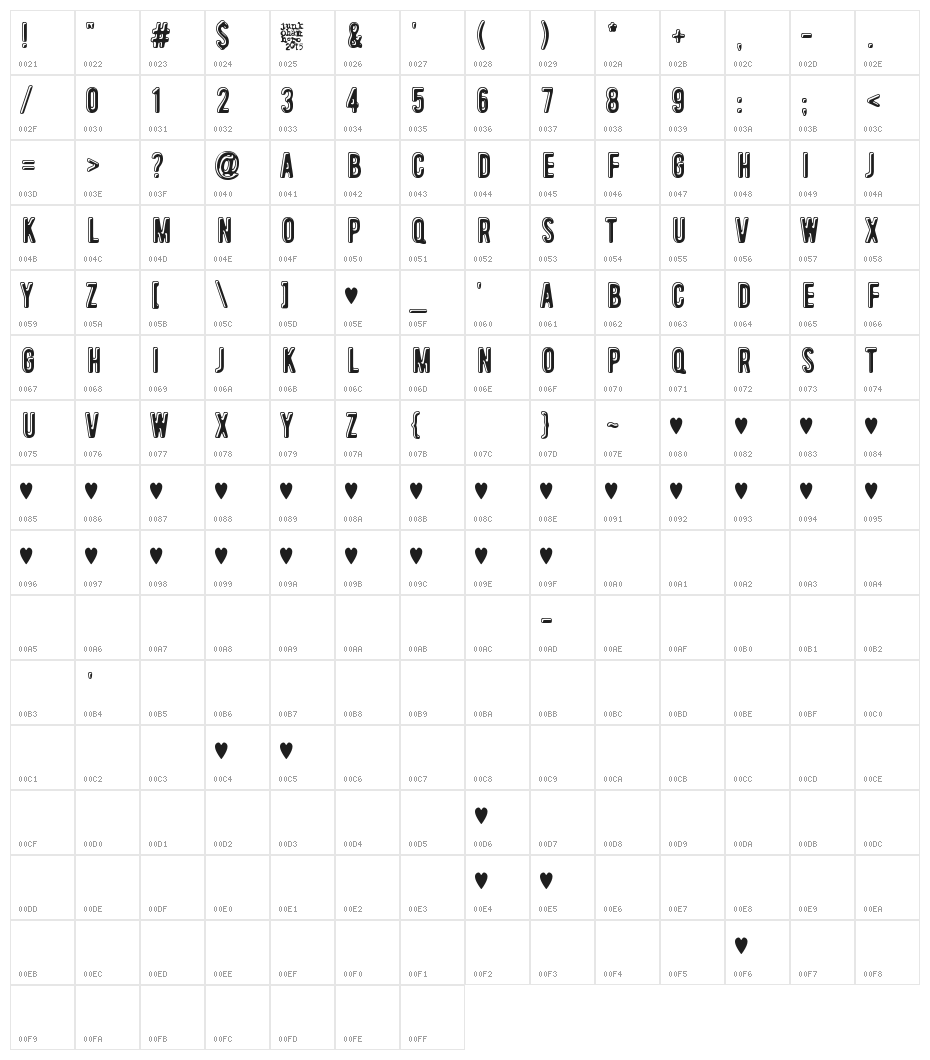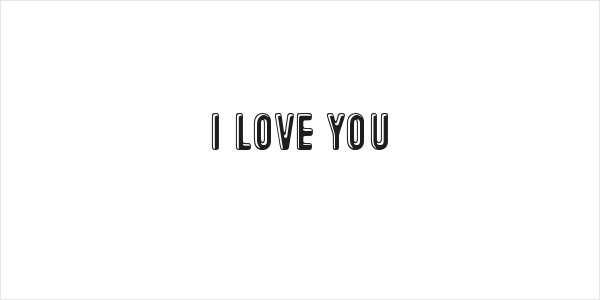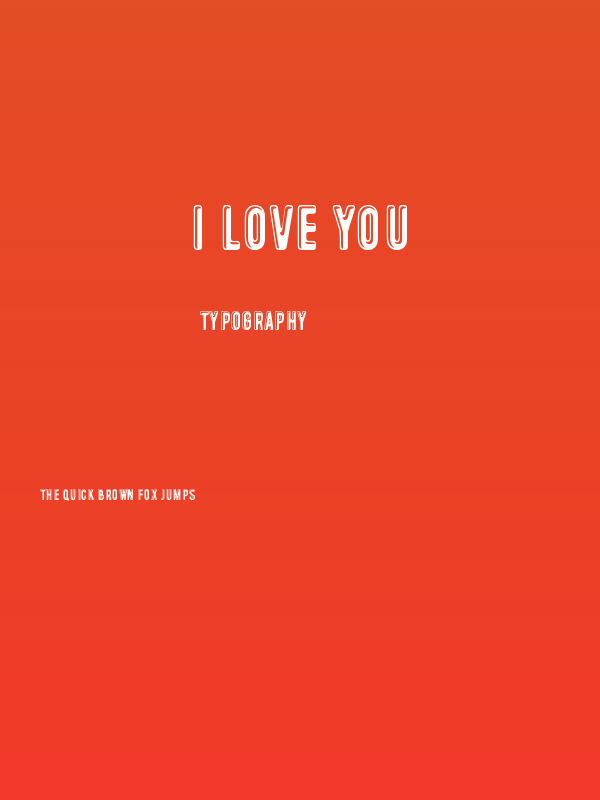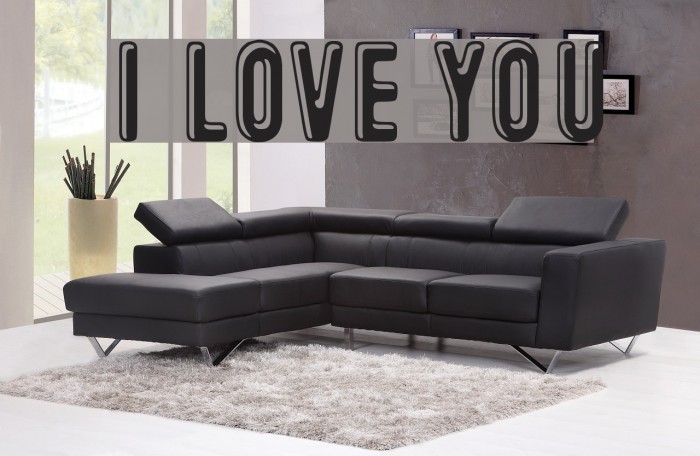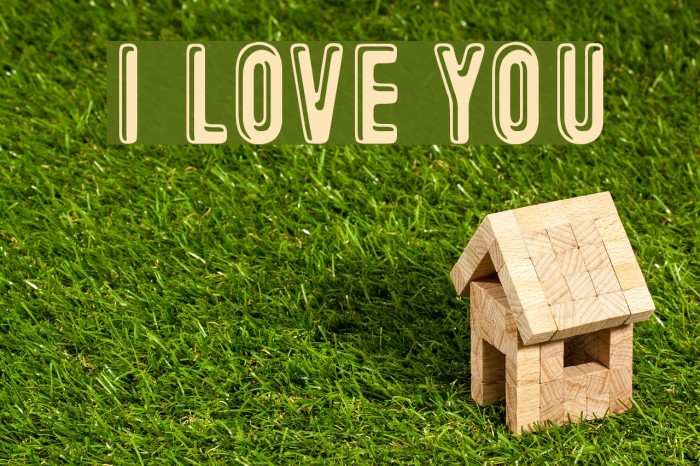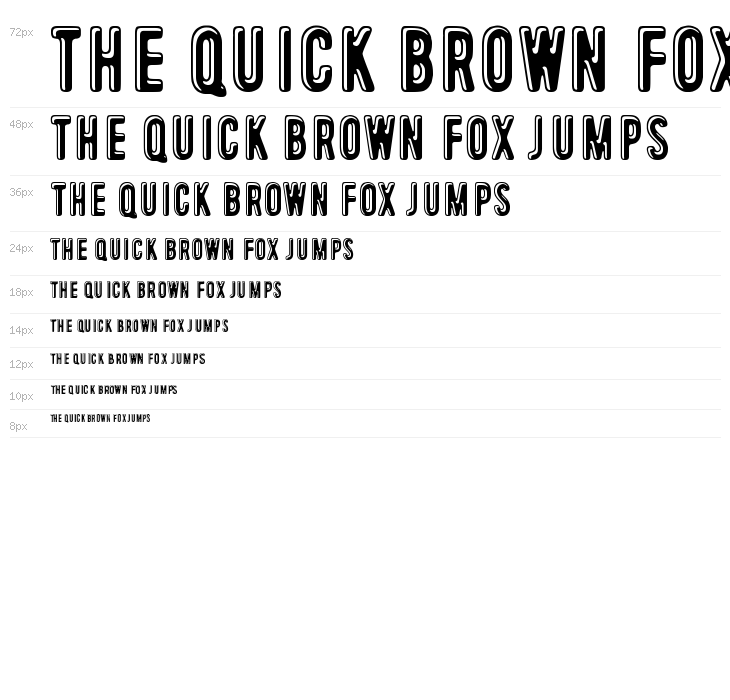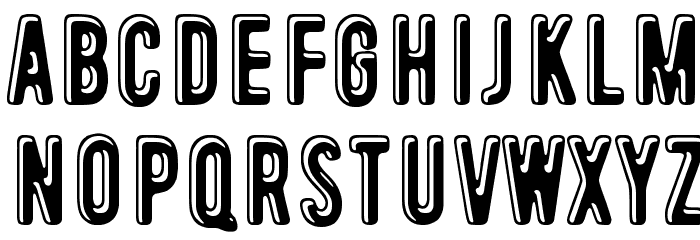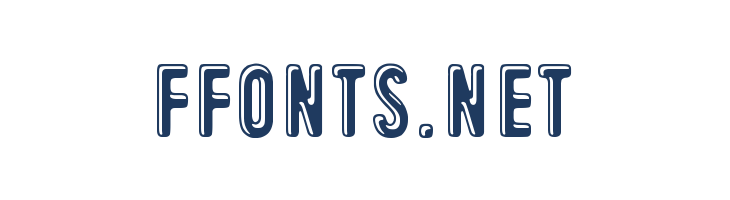
I love you Font
This font features a bold, outlined style with a playful and modern aesthetic. The characters are uppercase and lowercase alphabets, numerals, and a variety of special symbols. Each letter is designed with a thick outer stroke, creating a hollow effect that adds depth and dimension. The overall appearance is striking and eye-catching, making it suitable for designs that require a strong visual impact. The font's unique style is both contemporary and versatile, lending itself well to creative projects.
| Proposed Projects | Ideal for posters, logos, headlines, and branding materials that require a bold and distinctive look. |